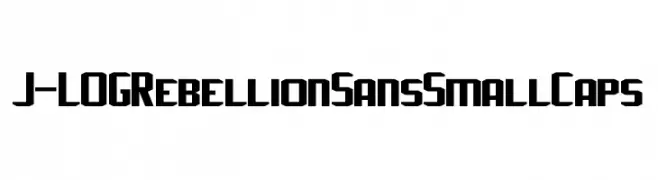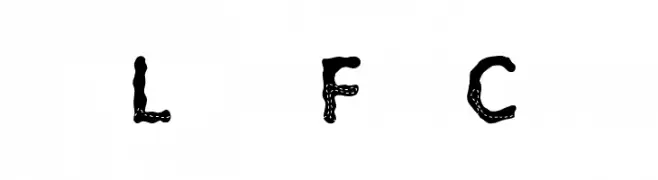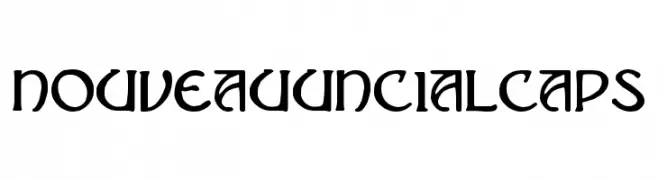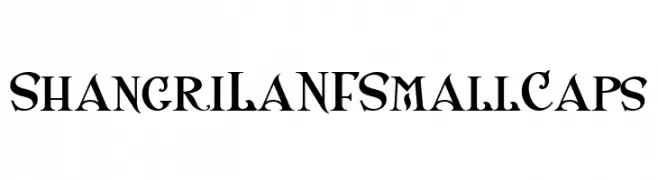
• Lost in the Fo'nt'rest Caps
A rugged, textured font with a hand-drawn, vintage feel.
• ShangriLaNFSmallCaps
A bold, decorative serif font with high contrast and elegant flair.
• Allcaps
A bold, brush-style font with a dynamic, hand-painted look.
• Tory Gothic Caps
An ornate Gothic-style font with dramatic, intricate designs and bold strokes.
• Nouveau Uncial Caps
A modern uncial-inspired font with elegant, rounded letterforms.
• J-LOG Rebellion Serif Small Caps
Bold, angular serif font with a modern, rebellious style.
• J-LOG Razor Edge Small Caps
A bold, angular font with a modern, gothic-inspired design.
• J-LOG Cameron Edge Small Caps
A bold, angular font with a geometric and industrial style.
• J-LOG Rebellion Sans Small Caps
A bold, geometric font with angular lines and a modern, futuristic style.
• Dalek
A bold, jagged font with a distressed, grunge style.